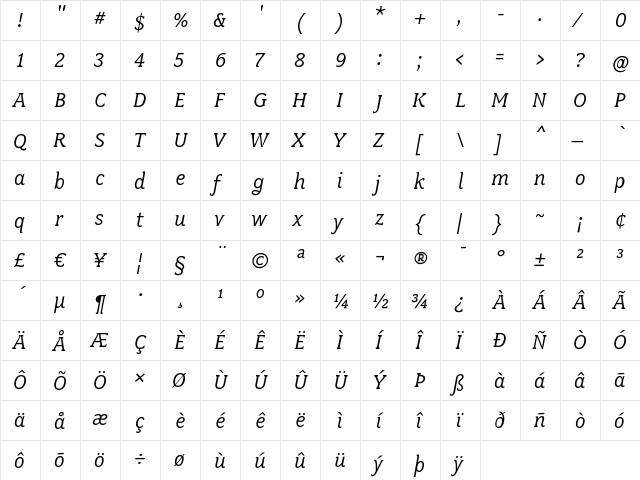
FairplexNarrowBookItalic Regular Font Preview
| Designer | Zuzana Licko |
Design Context for FairplexNarrowBookItalic Typeface
FairplexNarrowBookItalic is a composed and adaptable typeface that performs quietly and consistently across a wide range of design contexts. The dynamic lean of this cut emphasises speed and emphasis in any layout. The condensed width makes it efficient for tight spaces without sacrificing legibility.
Pro Tip: Try FairplexNarrowBookItalic for annotation and caption copy alongside an upright companion — the contrast in angle creates a dynamic but ordered typographic system.